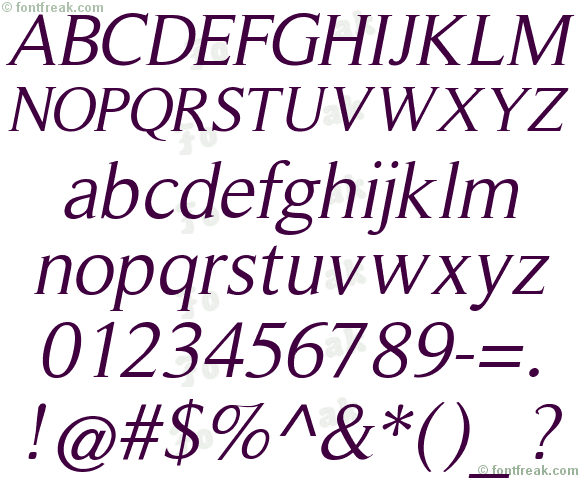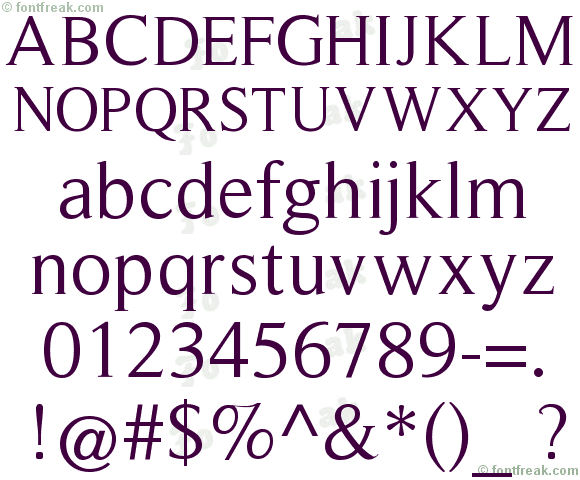
RomanSerif-Oblique
RomanSerif
About RomanSerif-Oblique
The RomanSerif-Oblique font, designed by Manfred Klein, is a striking serif typeface that captures the essence of classic typography with a modern twist. This oblique variant adds a sense of dynamism to traditional letterforms, making it an ideal choice for projects that require both elegance and readability. The font features moderate stroke weight, balanced contrast, and generous spacing, which together create a visually appealing rhythm that enhances legibility. Its subtle decorative elements, such as the gently slanted serifs, imbue each character with a touch of sophistication.
Due to its refined aesthetic, the RomanSerif-Oblique font is well-suited for a variety of applications. It shines in wedding invitations, where its elegance can convey romance and formality. Additionally, this typeface works beautifully for restaurant menus, offering an upscale feel that complements fine dining establishments. Graphic designers may find it perfect for book covers, where the blend of tradition and modernity can attract readers’ attention. Furthermore, it can elevate branding materials for small businesses, helping to create a memorable visual identity. Content creators will appreciate its versatility, as it adapts well to both digital and print formats.
The target audience for the RomanSerif-Oblique font includes graphic designers, small business owners, and content creators looking for a font that combines classic style with contemporary flair. This font stands out not only for its aesthetic appeal but also for its practicality in various design contexts. With the RomanSerif-Oblique font free download available, users can easily incorporate this unique typeface into their projects, adding a touch of elegance that is sure to impress. Whether for personal or professional use, this font is a valuable addition to any designer's toolkit.